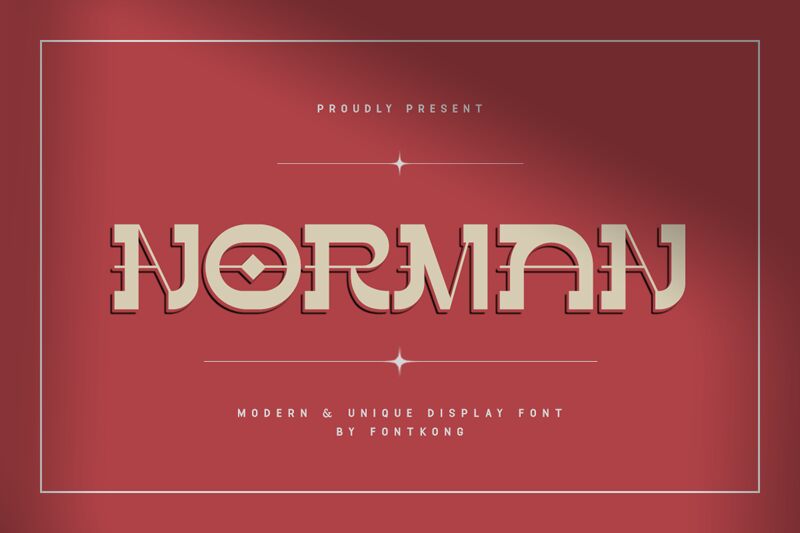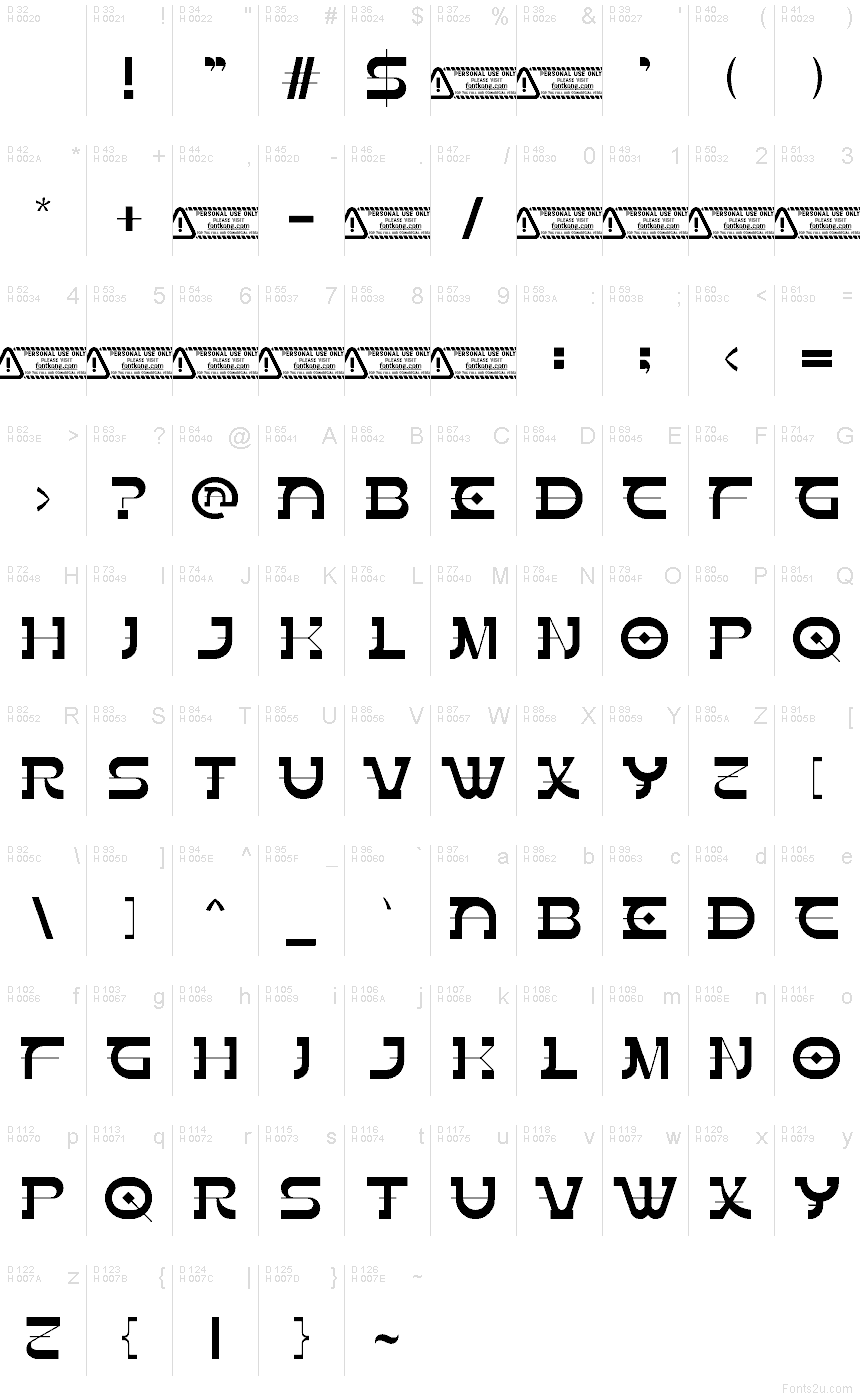
Norman font by Kong Font is a free retro display typeface that turns every word into architecture. Its tall, ribbon-like letters slice through the line with sharp diagonals, while the circular forms feel bold and industrial, almost like signage from a futuristic subway. The cutout shapes and geometric diamond details give it a confident, cinematic presence that jumps off the page in solid black.
Using Norman, headlines feel custom-drawn—great for posters, logos, album covers, packaging, event titles, and bold social media graphics. The tight rhythm and sculpted curves reward large sizes where the internal shapes can really breathe. For balance, pair this free font with a clean, unobtrusive sans-serif for body copy so Norman can do the heavy lifting in your main titles.